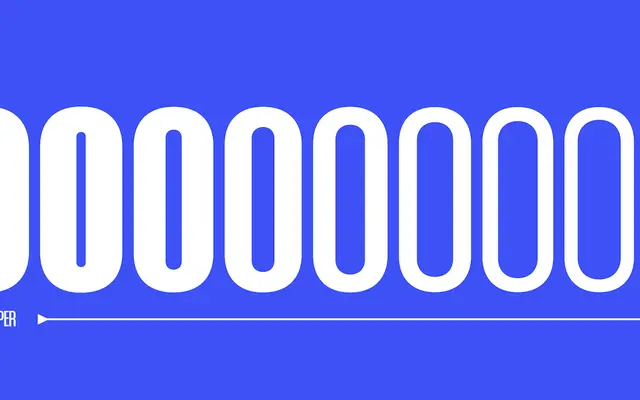
At Slam Cnd
A basketball-inspired condensed sans by Pedro Arilla, offered in ten weights with both forward and backward slanted cuts plus a two-axis variable font.
Designed with street courts and sporting culture in mind, At Slam Cnd runs across 30 styles: ten Roman weights from Air to Super, with matching Slanted and Backslant cuts for each. OpenType features include old-school alternates for a vintage feel, circled numerals and tabular figures, making it adaptable across scoreboard graphics, editorial sport and branded applications. The variable font covers Weight and Slant axes, and the condensed cut sits within a wider collection extending to XCnd, XXCnd and XXXCnd widths.
A condensed sans-serif with strong vertical stress and tight spacing, drawing on sporting and street vernacular rather than classical grotesque tradition. The backslant and slanted cuts reinforce its expressive, display-oriented character.